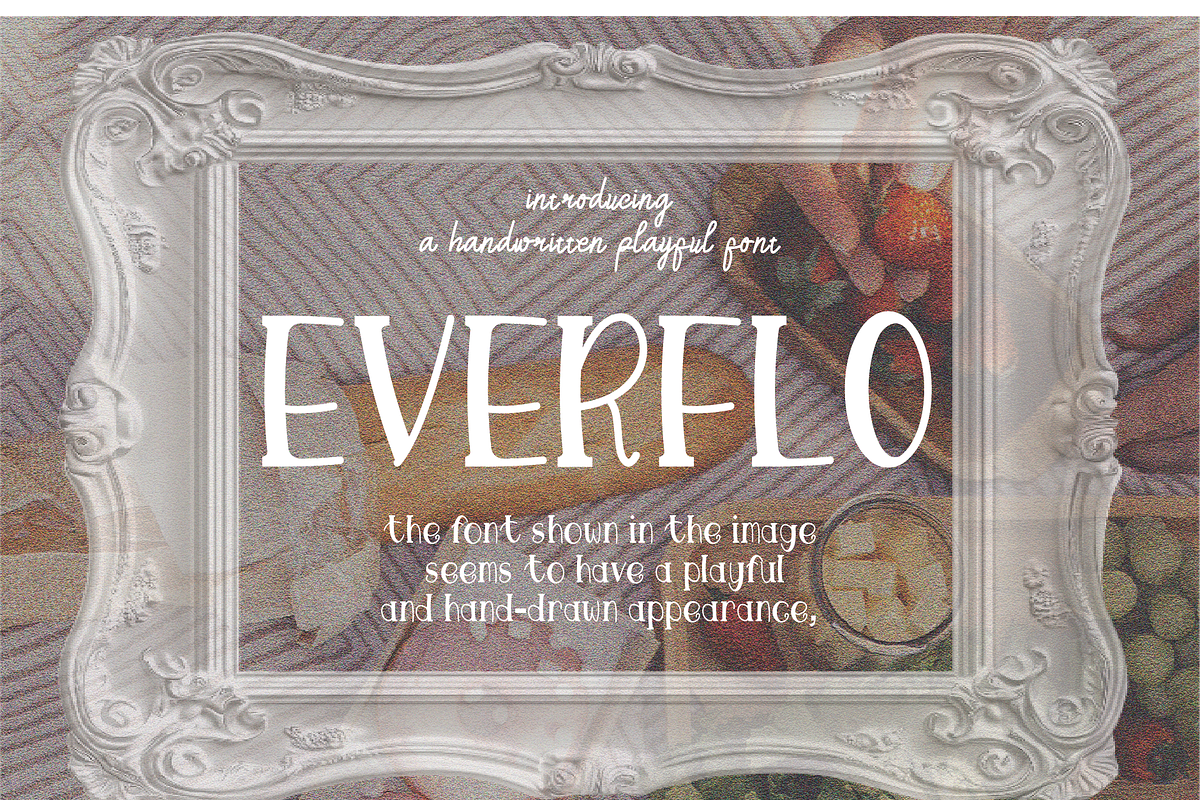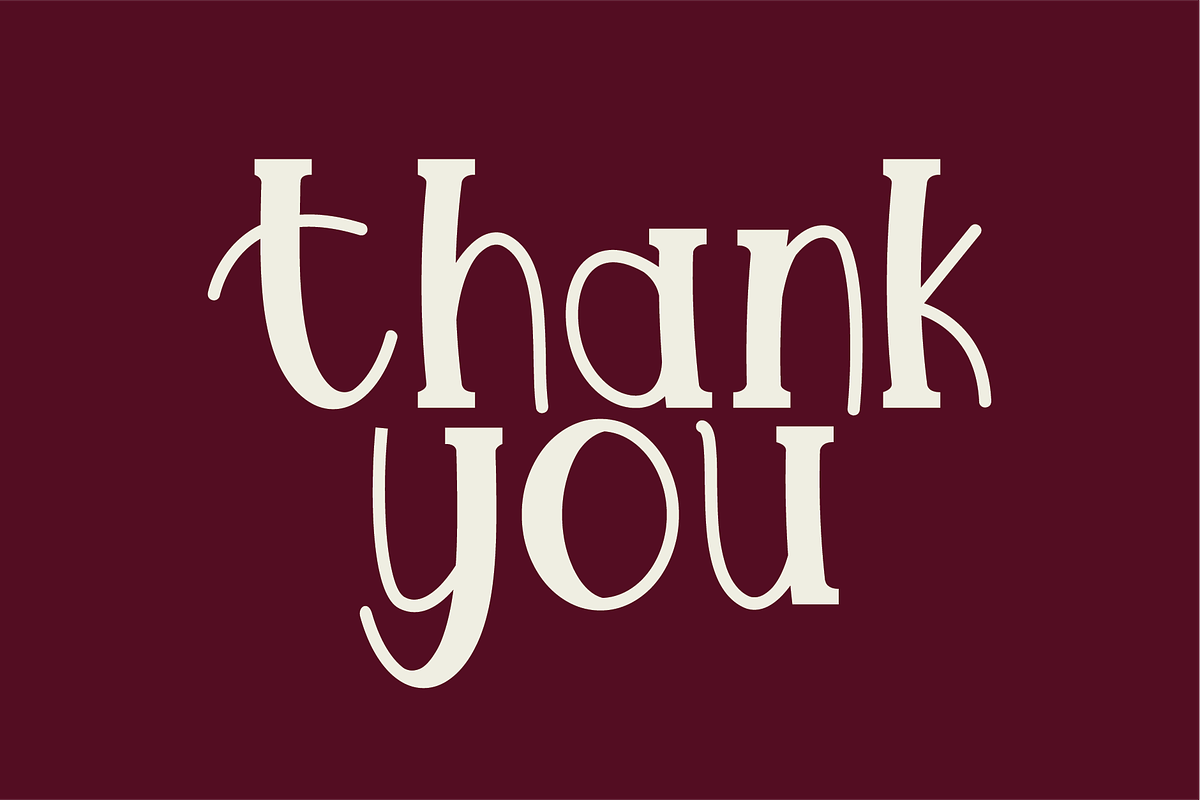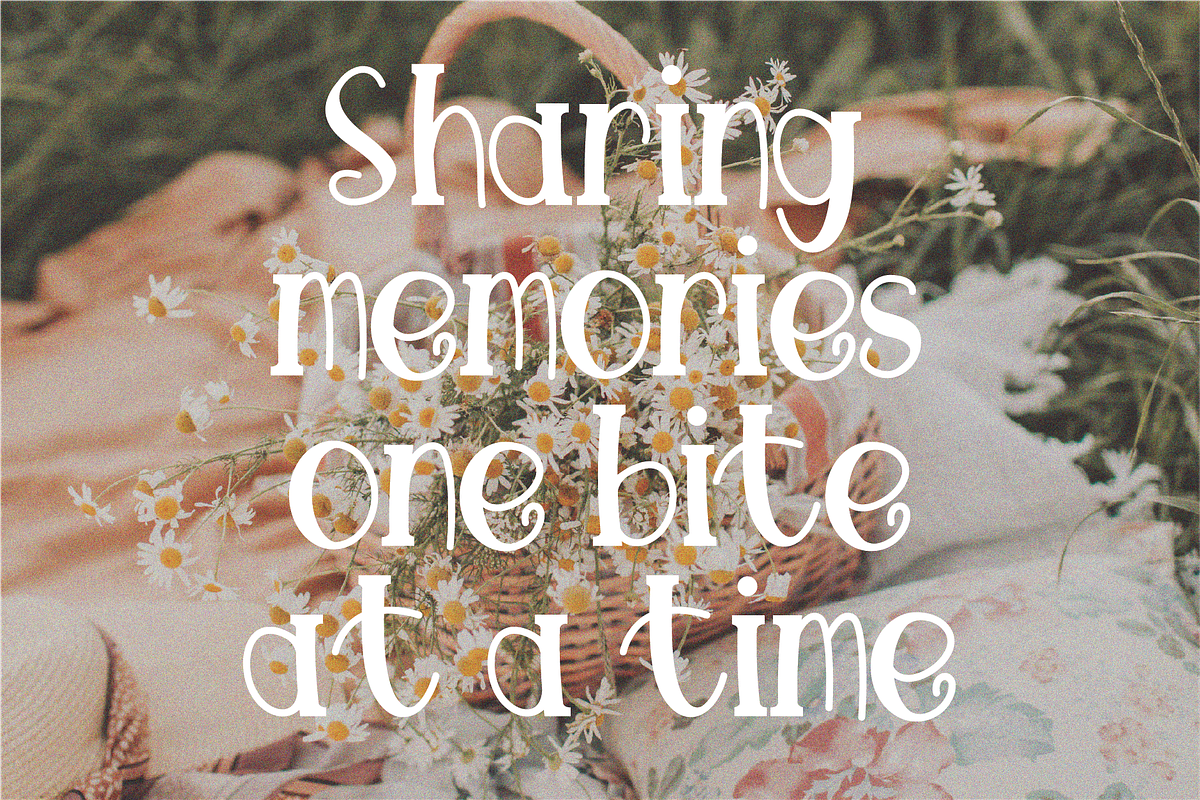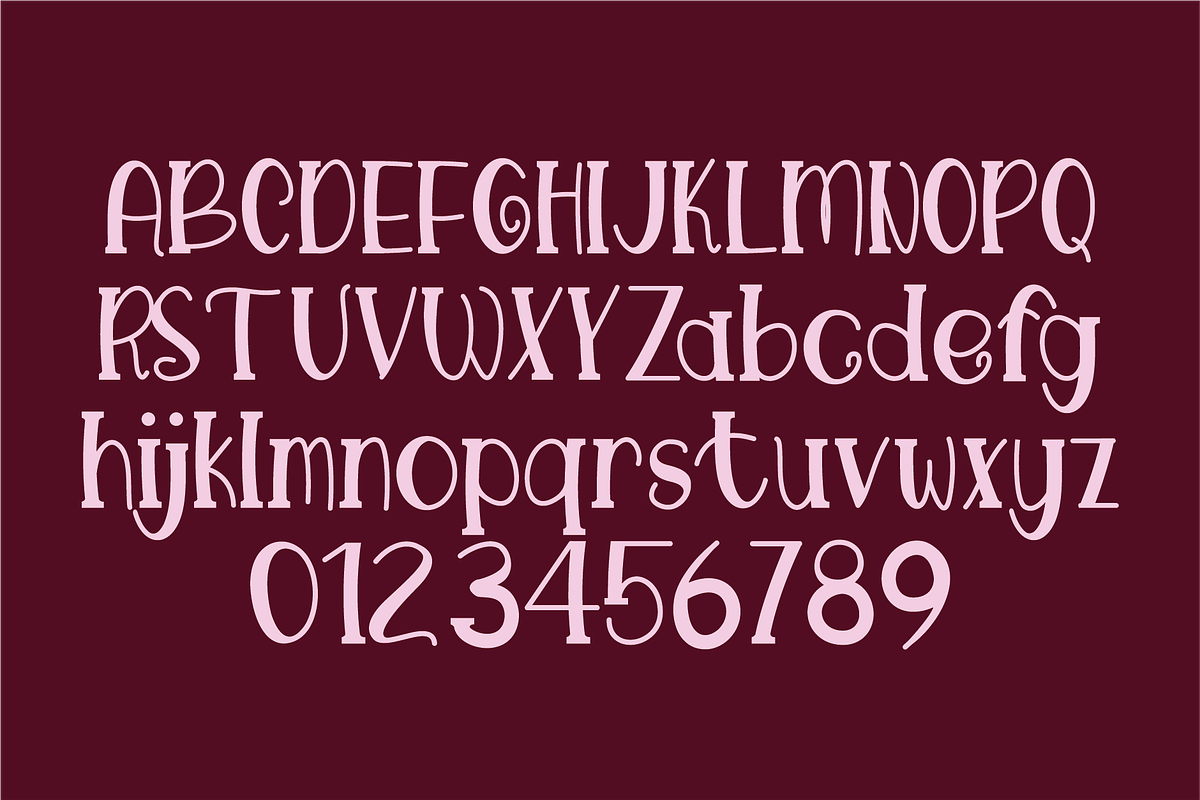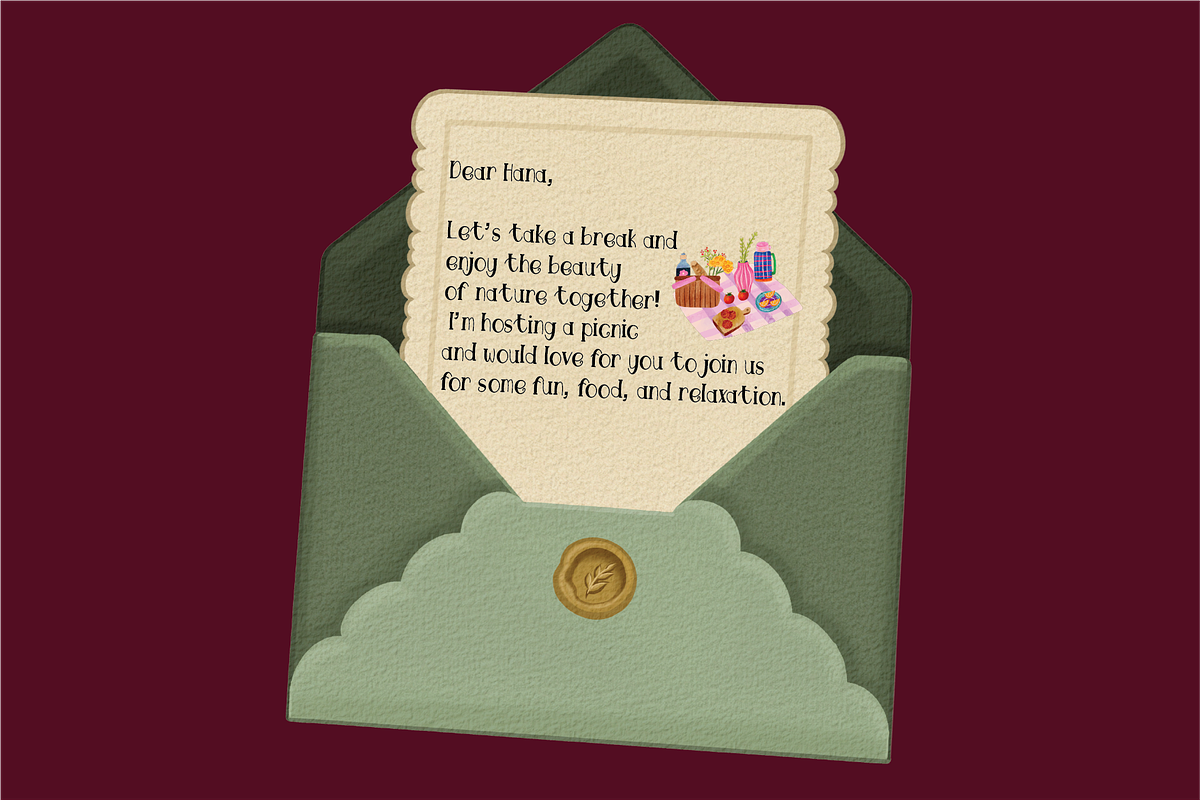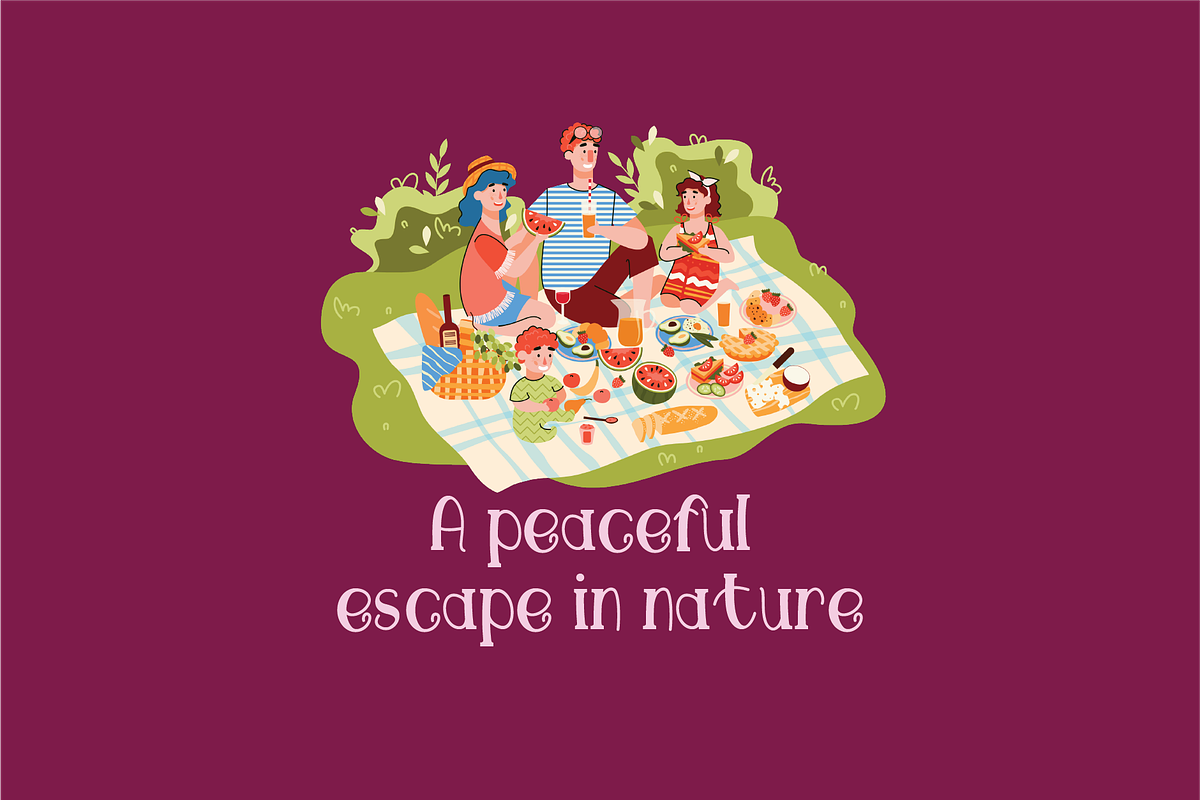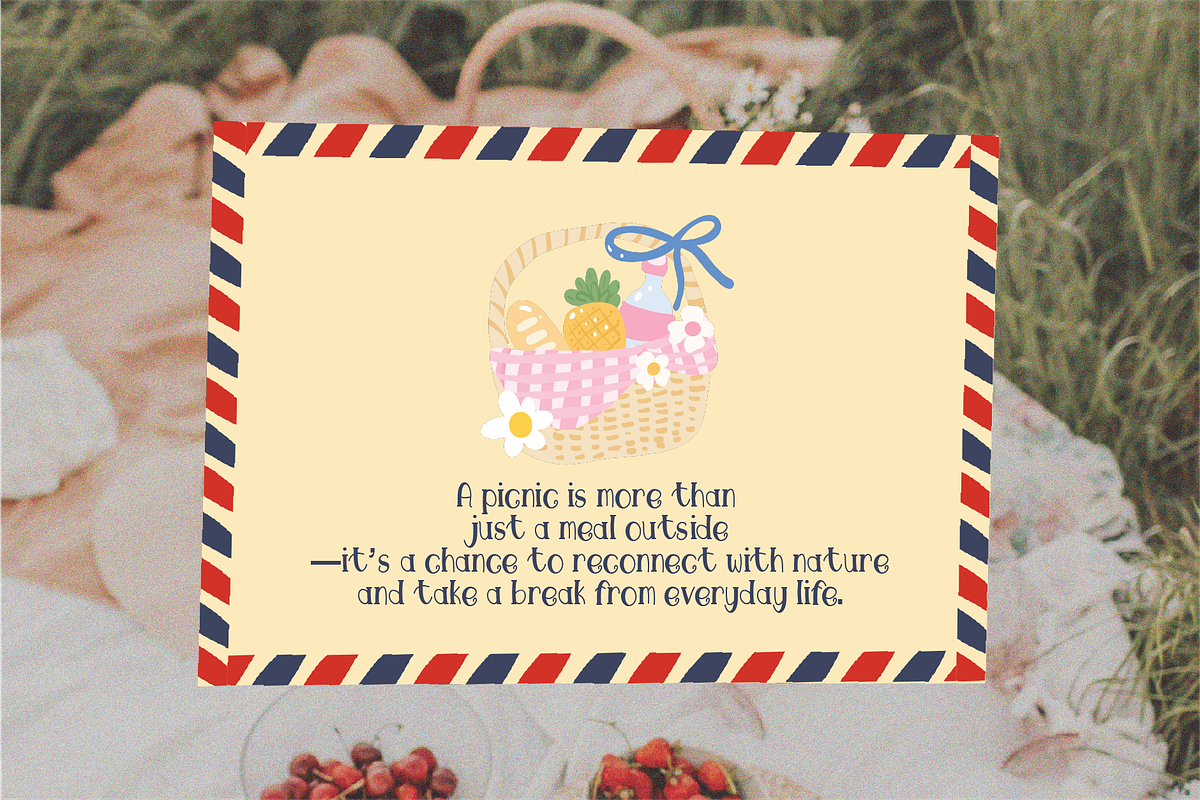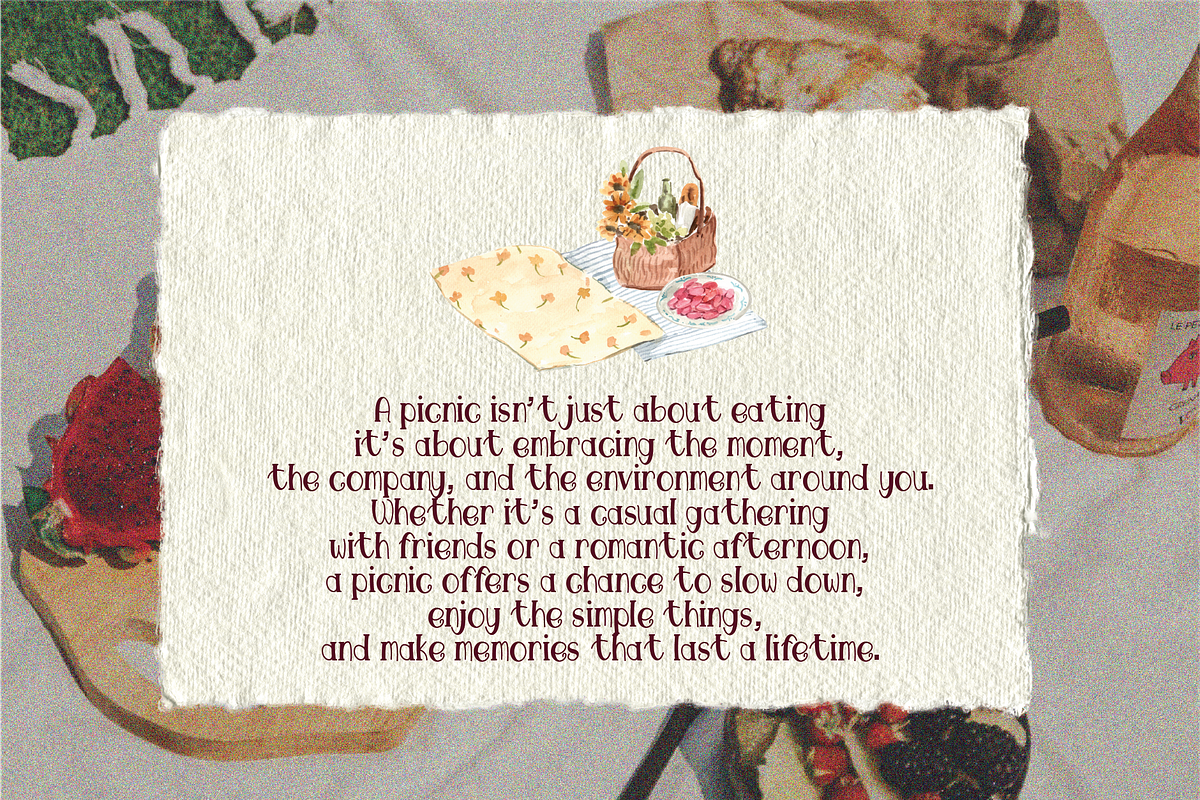
Everflo - Playful Font
Everflo The font has a clean, elegant, and slightly vintage feel with tall, slender letterforms. The rounded edges and subtle curves create a soft, flowing appearance that feels both timeless and modern.